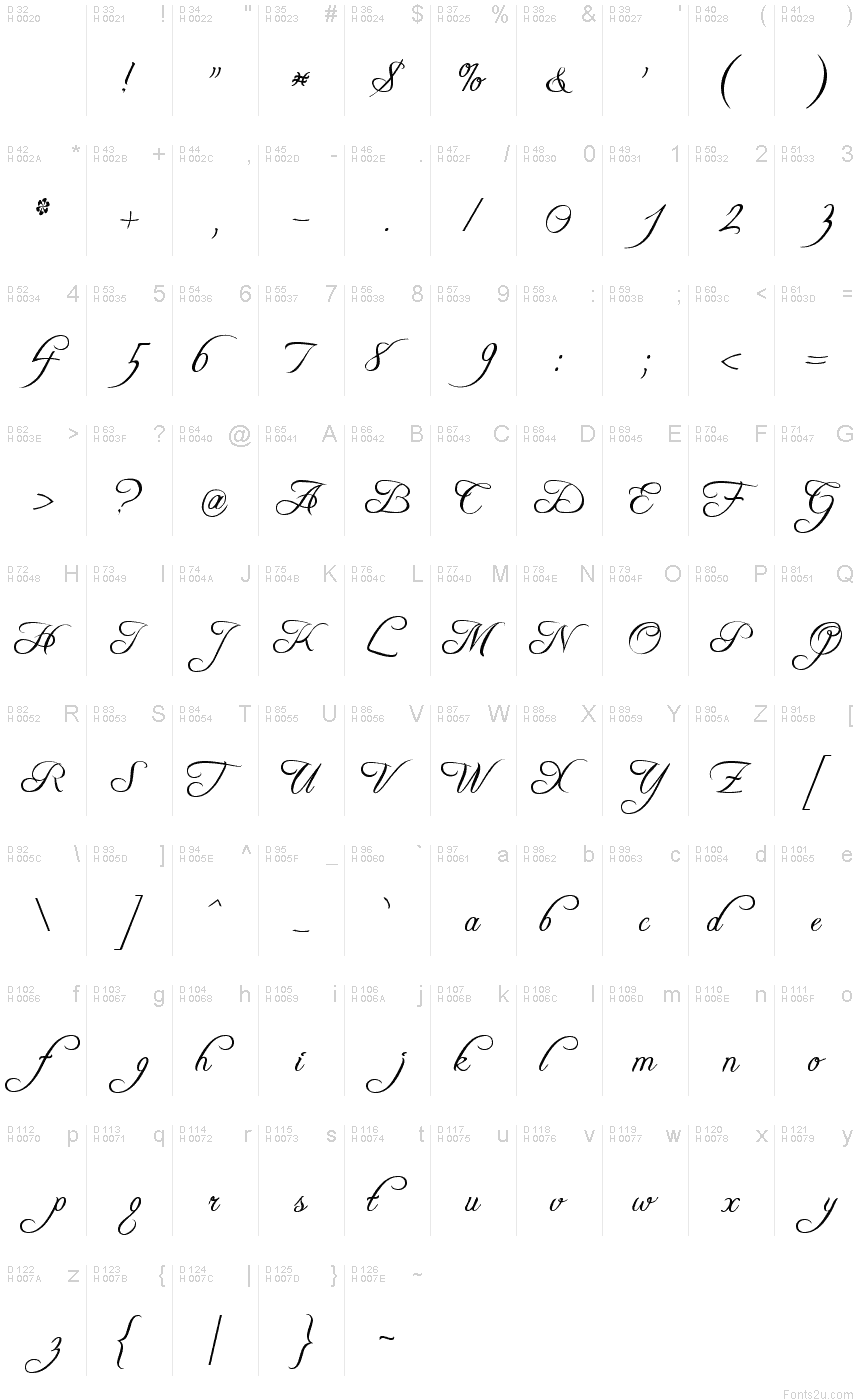
Freebooter Script font by Graham Meade is a free calligraphic script typeface with sweeping, romantic curves and inky, pen-drawn texture. The letters link together in long, flowing strokes that feel like they were written in one confident motion, with elegant swashes that trail off like ribbons. It has a lush, slightly theatrical rhythm that instantly adds ceremony and drama without feeling stiff or old-fashioned.
Using Freebooter Script, you can give wedding invitations, event programs, certificates, boutique logos, packaging, book covers, and social media graphics a sense of handcrafted luxury. This free font shines at larger sizes where its flourishes can breathe, while short phrases or names work especially well. For balance, pair it with a clean geometric sans serif in small text to keep layouts readable and let the script do the storytelling.